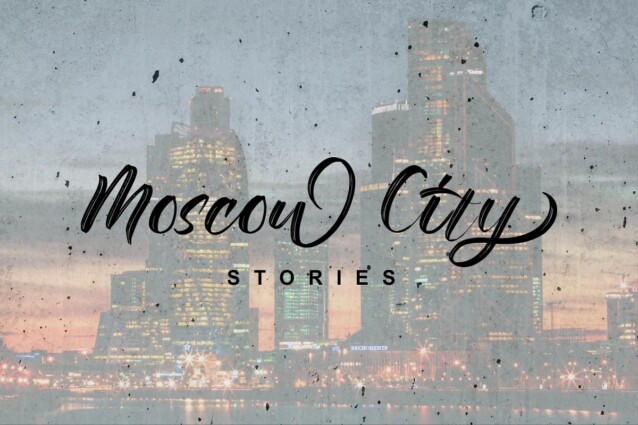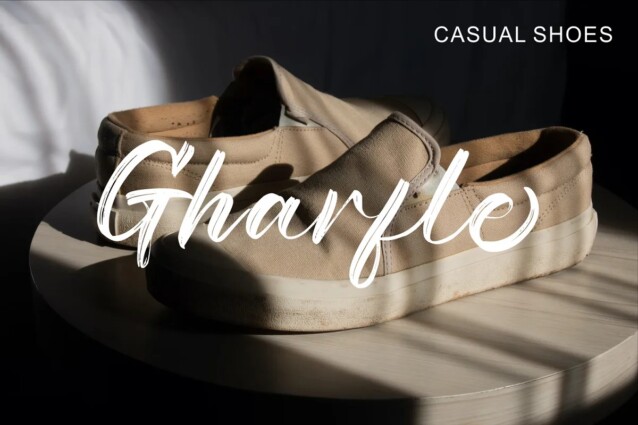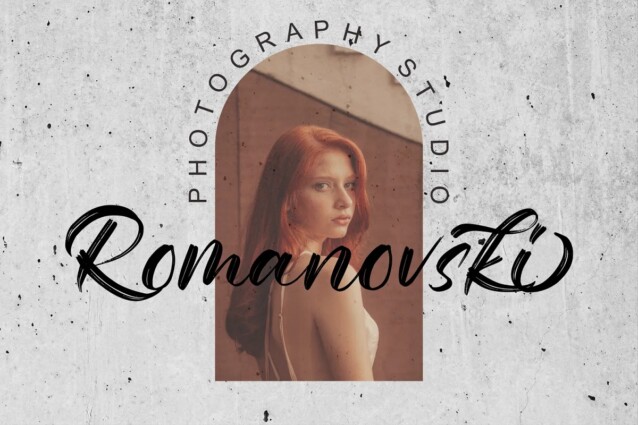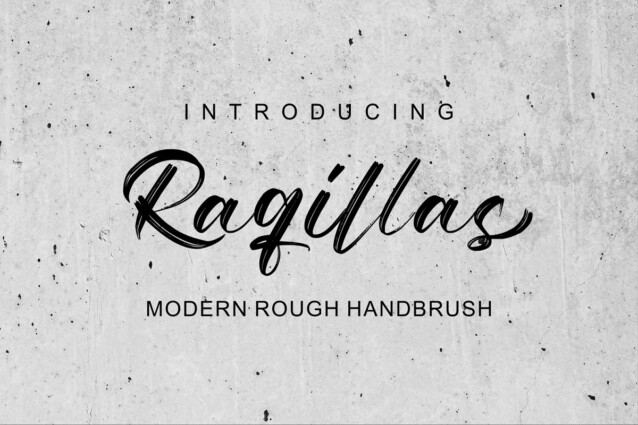
Raqillas Font is a new modern handwritten font with a bold style and contemporary design approach, naturally handcrafted. Ideal for logos, handwritten quotes, product packaging, headers, posters, apparel, merchandise, social media & greeting cards. Basic Latin A-Z and A-z Symbol Numerals PUA Encode Multilingual Support You need a program that supports OpenType features such as Adobe Illustrator CS, Adobe Indesign & CorelDraw X6-X7.